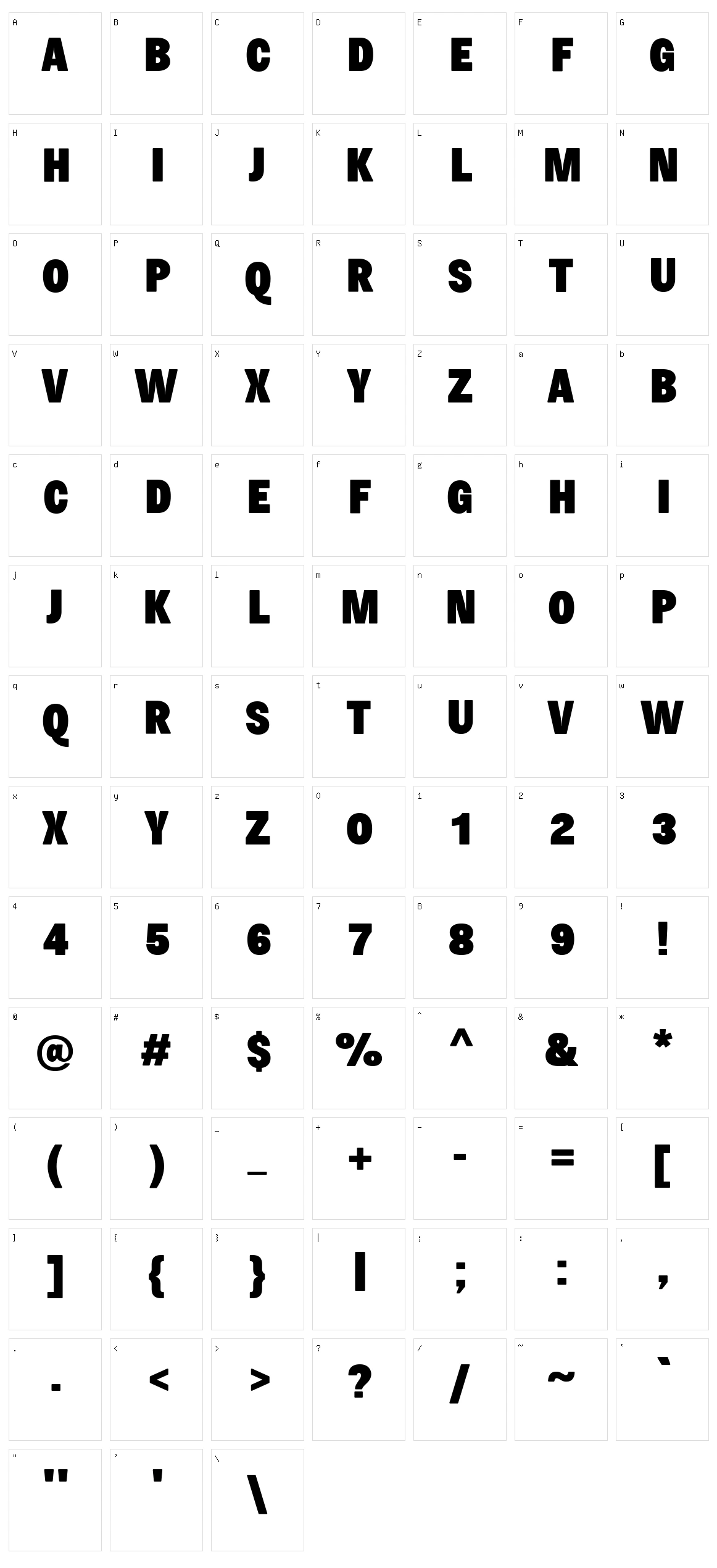
The free font Juzif is carefully designed by Moh'd Khatib, showcasing a thoughtful balance of creativity and usability and falls under the Sans serif font style. When you download the ZIP file, it contains only 36.82 KB of font files, making it lightweight and quick to download. Please review the license details below to understand permitted usage and distribution rights. If license information is not available, we recommend using this font for personal projects only or contacting the author directly for commercial usage permissions.